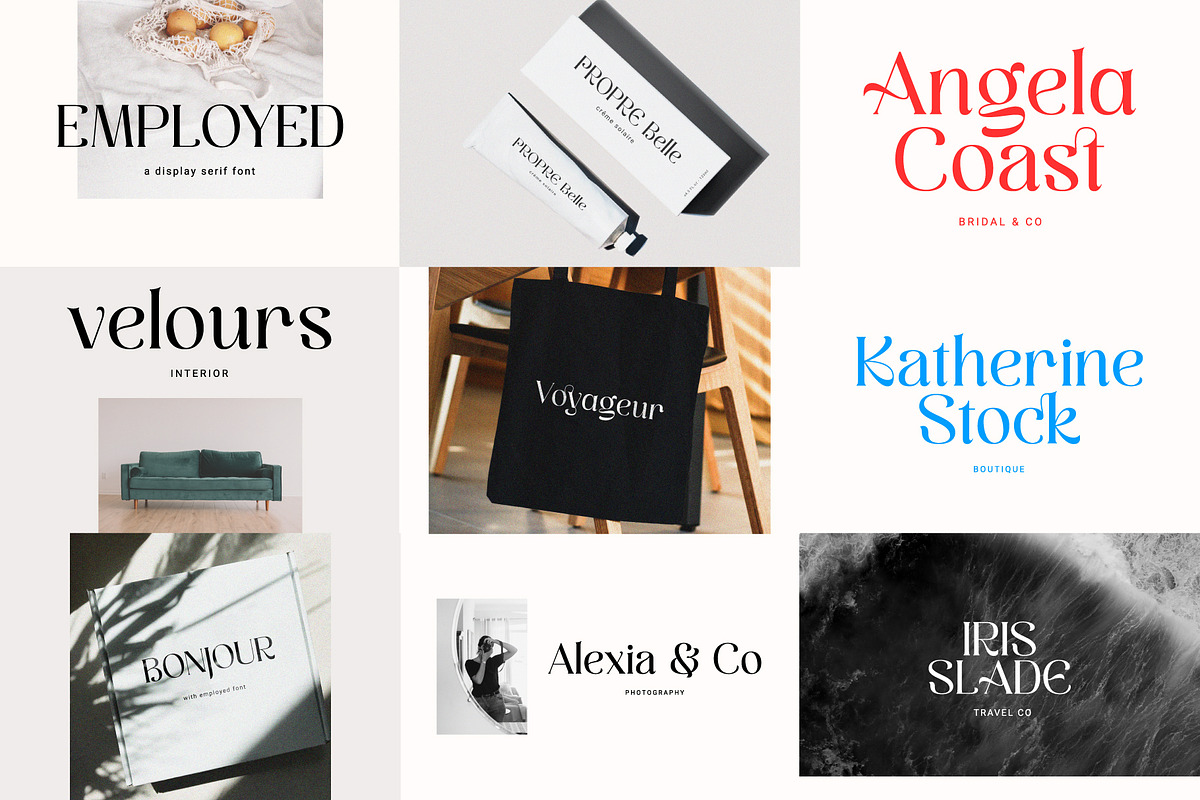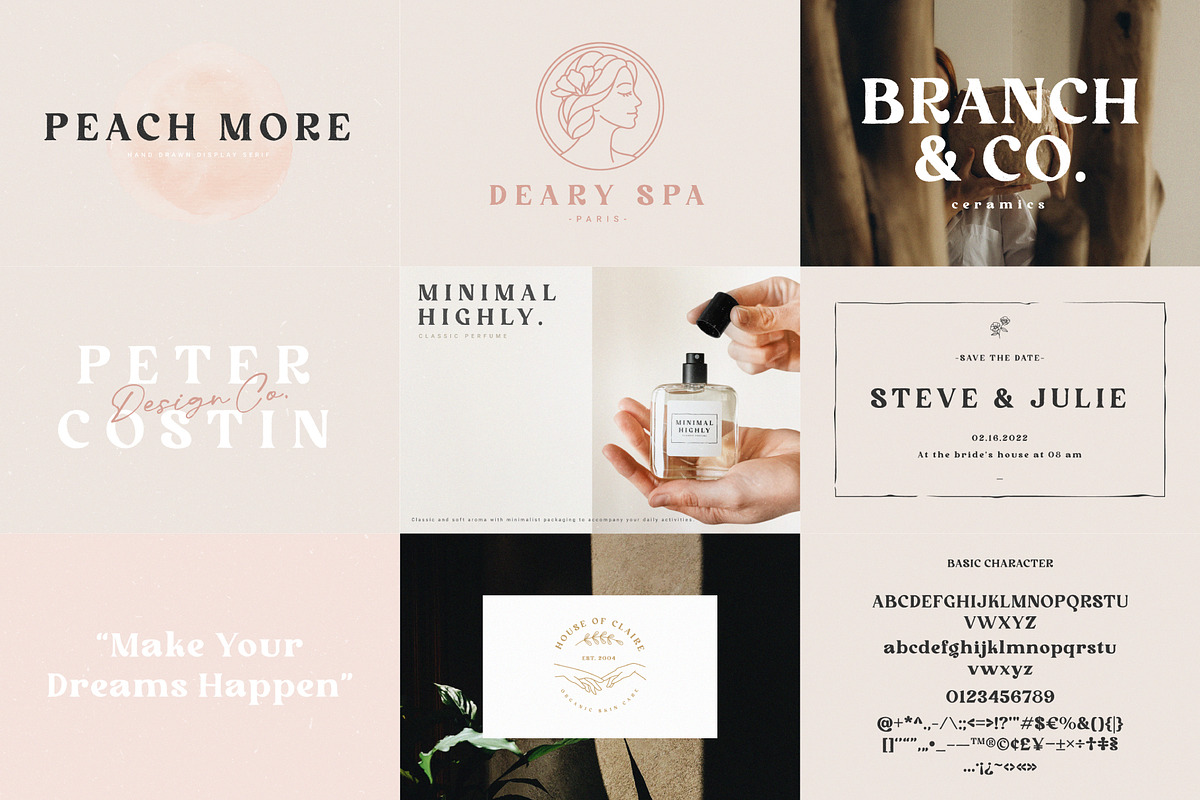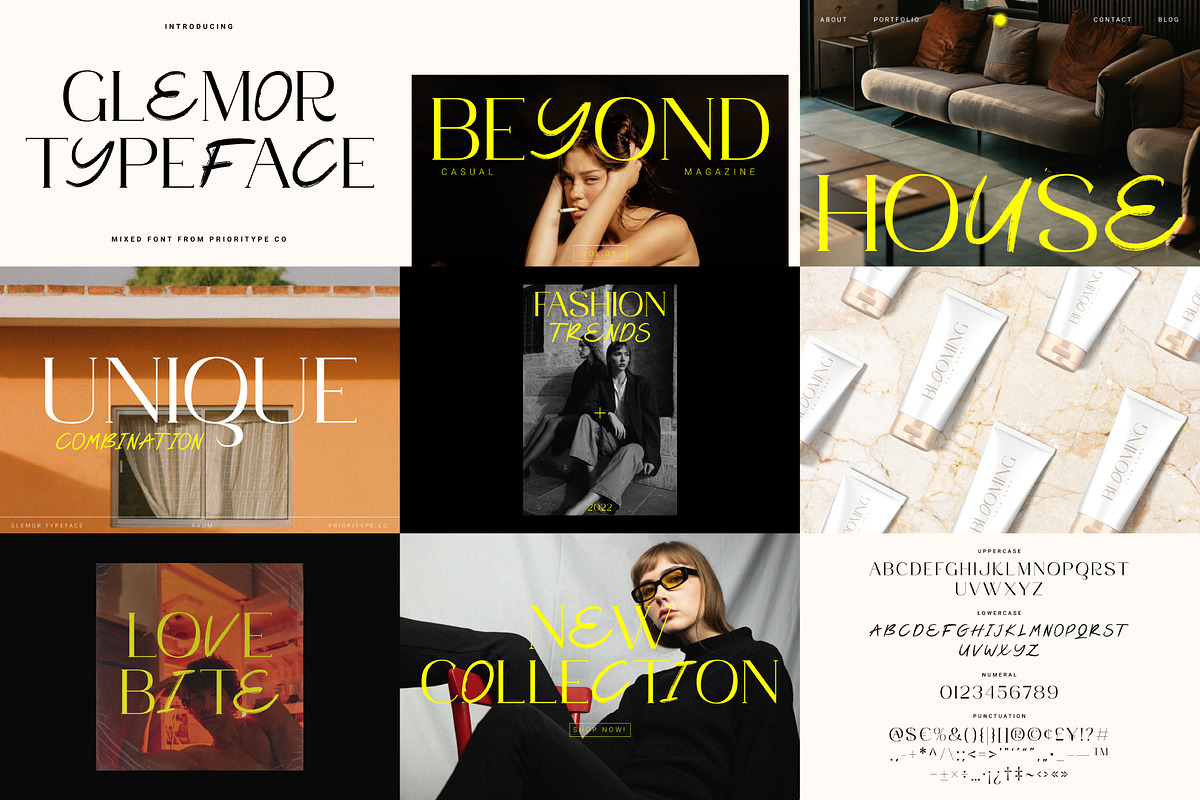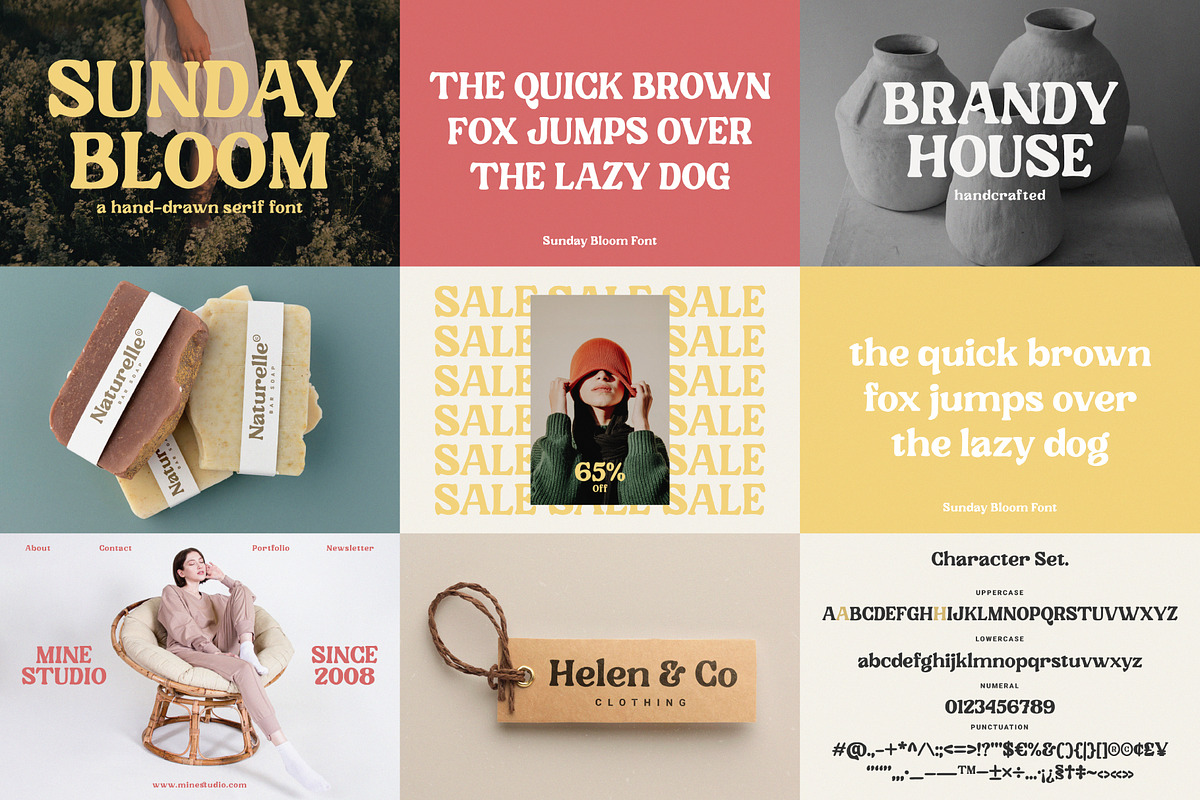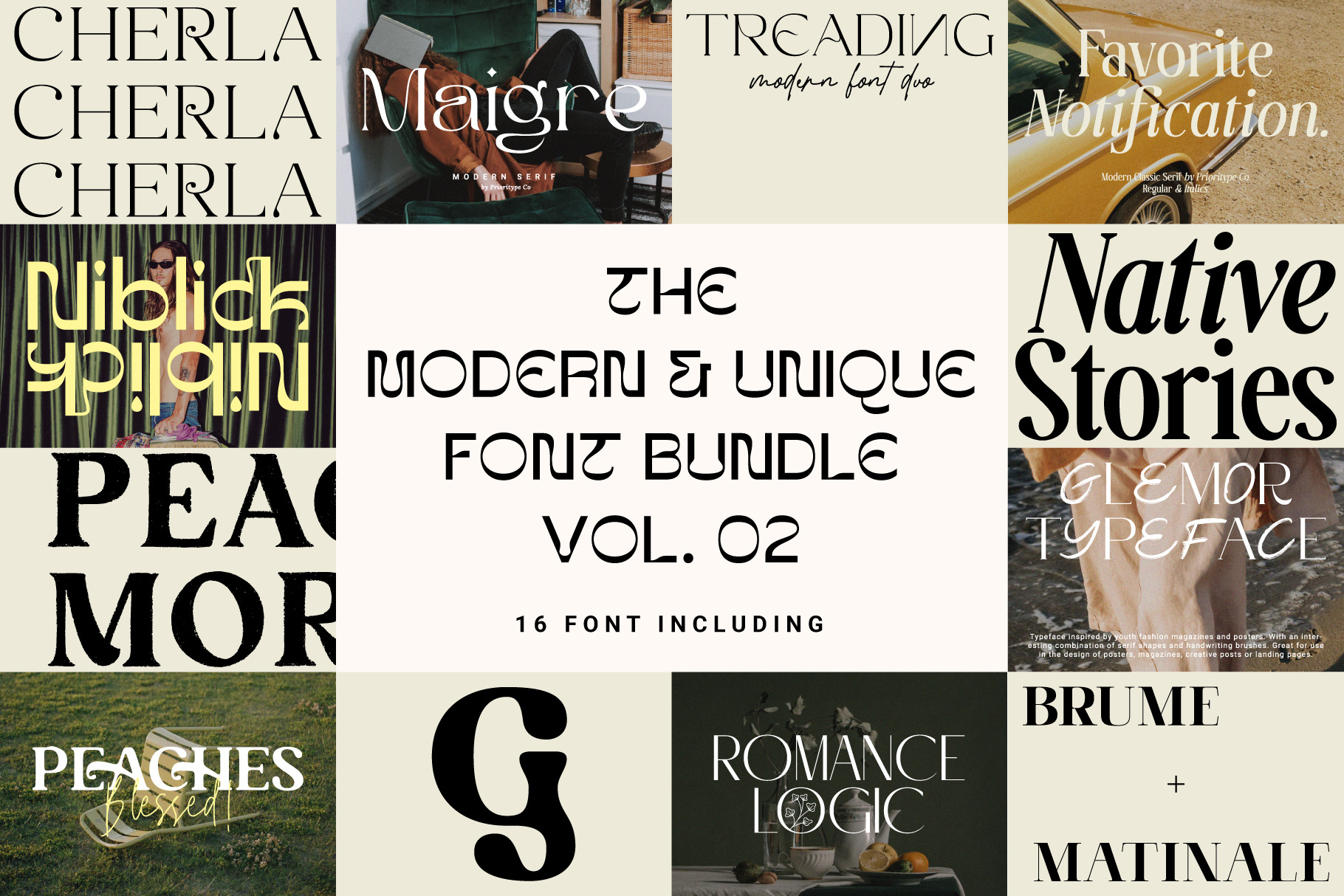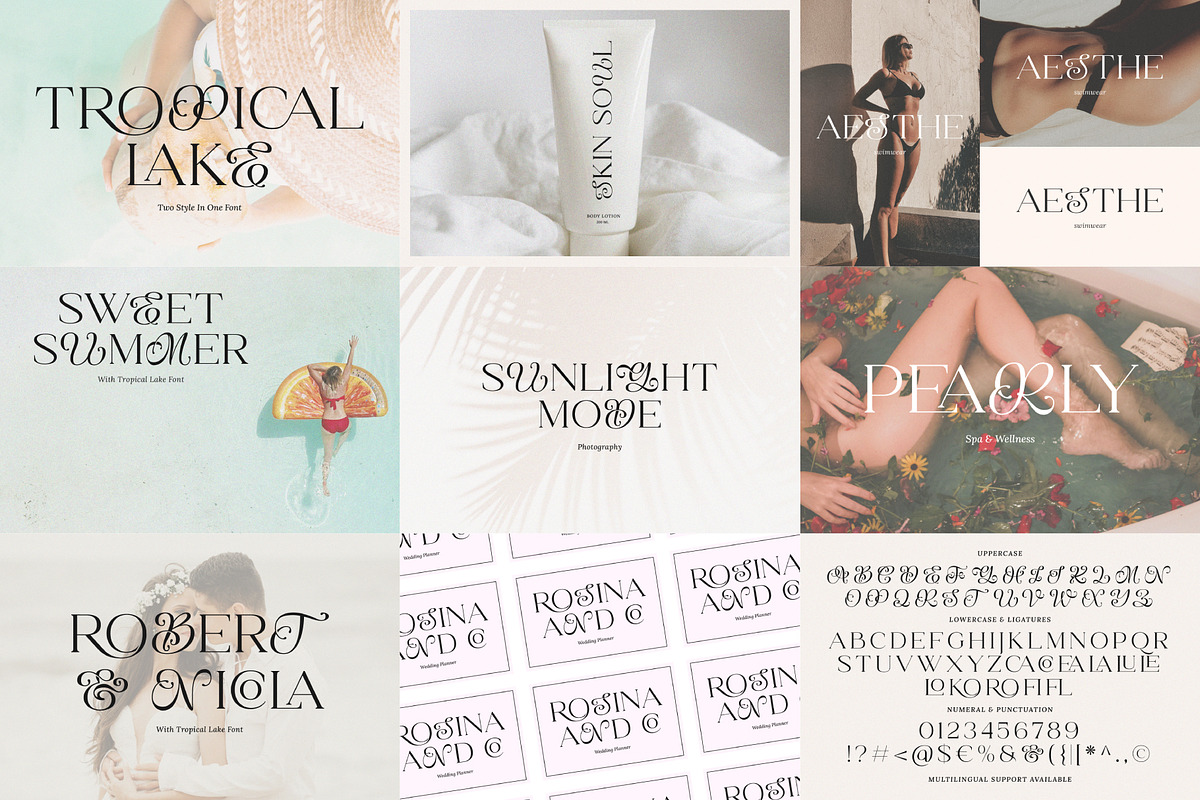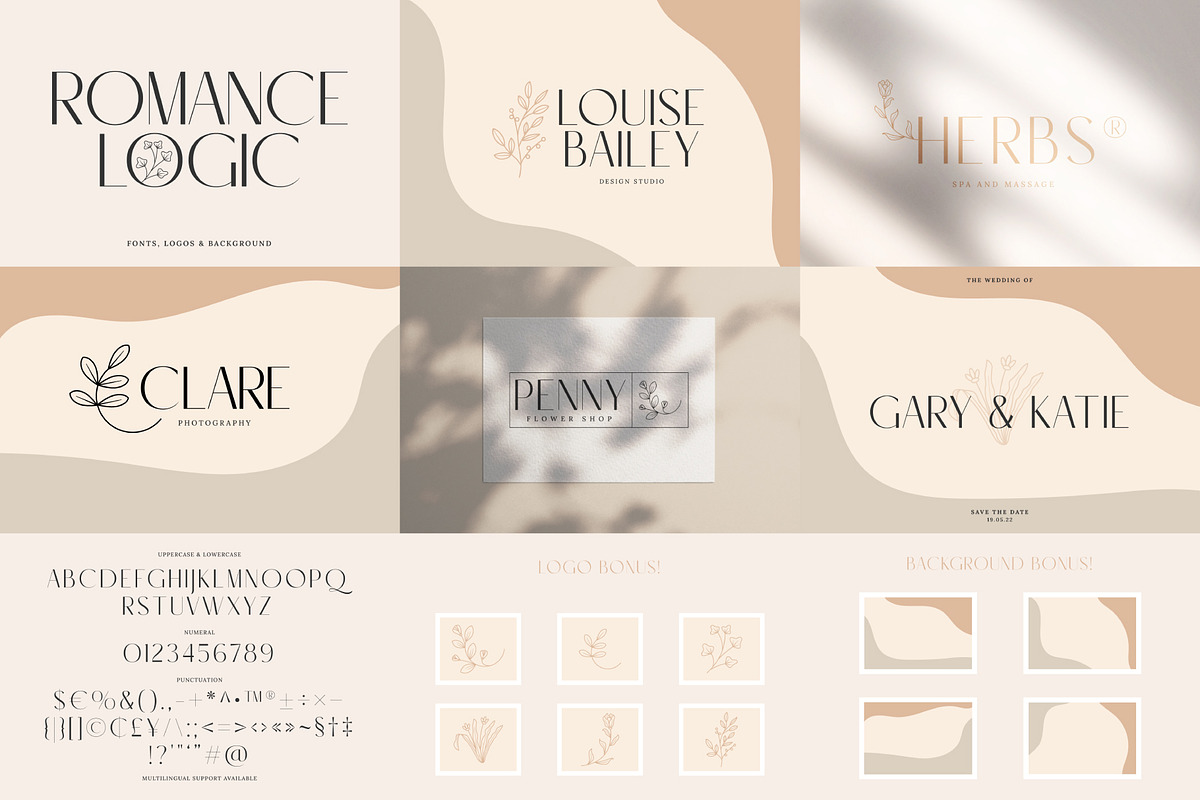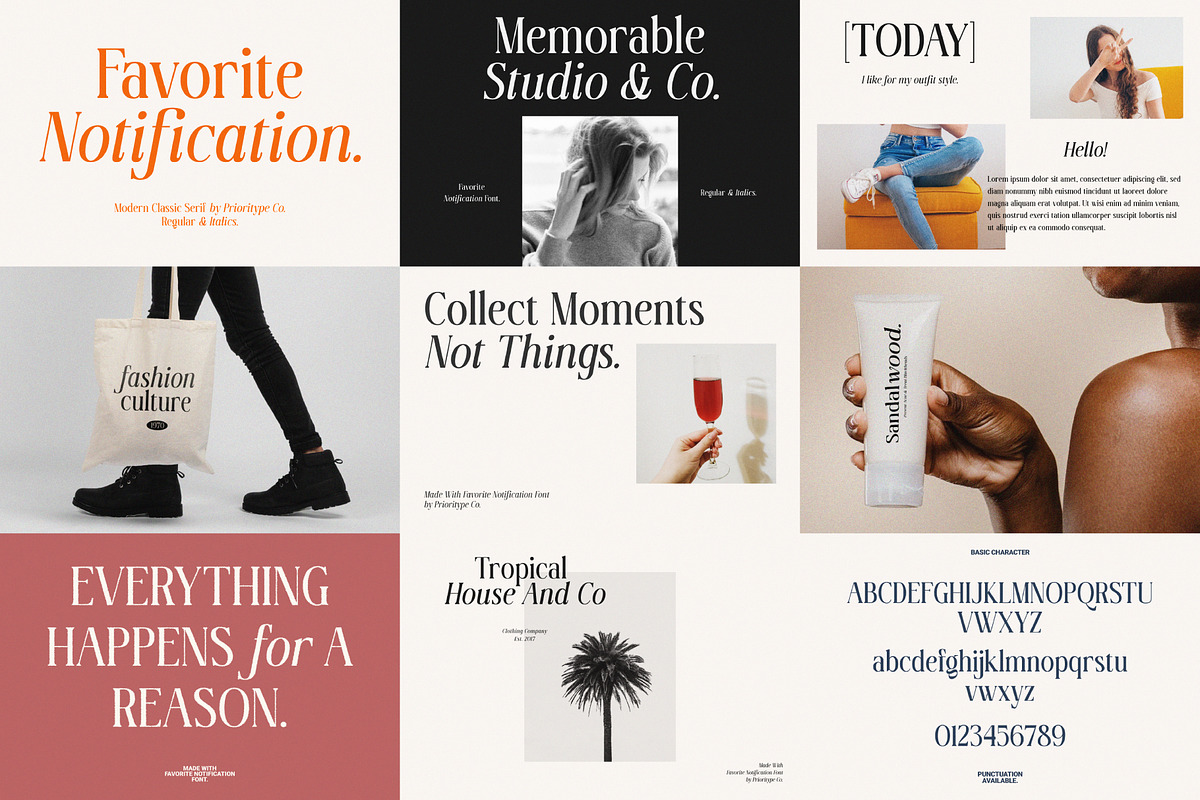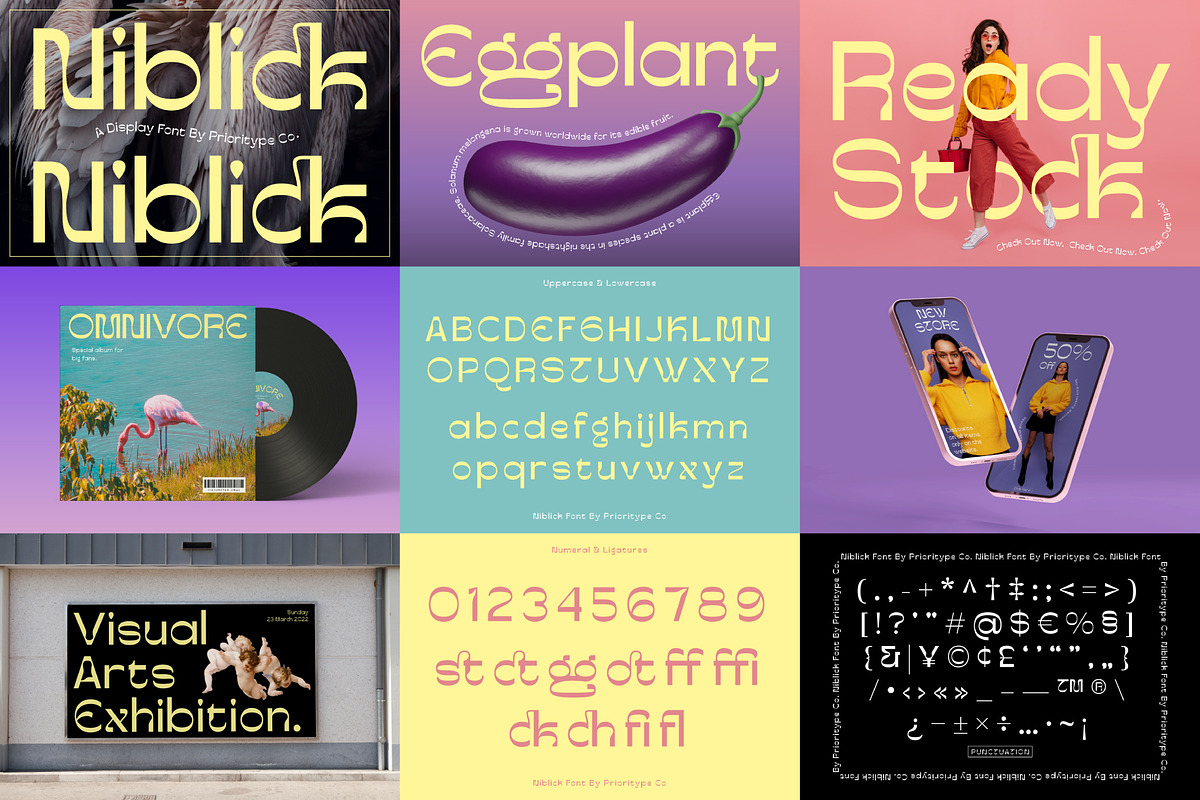
The Modern & Unique Font Bundle #02
The Modern & Unique Font Bundle Vol.02
Contains 16 fonts that you are ready to use for your design projects such as branding, creative posts, logos, wedding invitations, covers and so on.
Font Including:
- Maigre - Modern Serif: https://creativemarket.com/Prioritype/7053811-Maigre-Modern-Serif
- Treading - Modern Font Duo: https://creativemarket.com/Prioritype/7267126-Treading-Modern-Font-Duo
- Cherla – Chic Serif Font: https://creativemarket.com/Prioritype/7258200-Cherla-–-Chic-Serif-Font
- Peaches Blessed - Font Duo: https://creativemarket.com/Prioritype/7301659-Peaches-Blessed-Font-Duo
- Favorite Notification: https://creativemarket.com/Prioritype/7071195-Favorite-Notification
- Glemor Typeface: https://creativemarket.com/Prioritype/6831896-Glemor-Typeface
- Tropical Lake - Combination Font: https://creativemarket.com/Prioritype/7542649-Tropical-Lake-Combination-Font
- Peach More: https://creativemarket.com/Prioritype/6961113-Peach-More
- Romance Logic: https://creativemarket.com/Prioritype/7118788-Romance-Logic
- Native Stories - Classic Serif Font: https://creativemarket.com/Prioritype/7414604-Native-Stories-Classic-Serif-Font
- Codigra - Modern Retro Font: https://creativemarket.com/Prioritype/6869261-Codigra-Modern-Retro-Font
- Brume Matinale: https://creativemarket.com/Prioritype/6811839-Brume-Matinale
- Bread Flour - Bold Retro Serif Font: https://creativemarket.com/Prioritype/7526719-Bread-Flour-Bold-Retro-Serif-Font
- Sunday Bloom: https://creativemarket.com/Prioritype/6892916-Sunday-Bloom
- Niblick - Display Font: https://creativemarket.com/Prioritype/7017112-Niblick-Display-Font
- Employed - A Display Serif Font: https://creativemarket.com/Prioritype/7001062-Employed-A-Display-Serif-Font